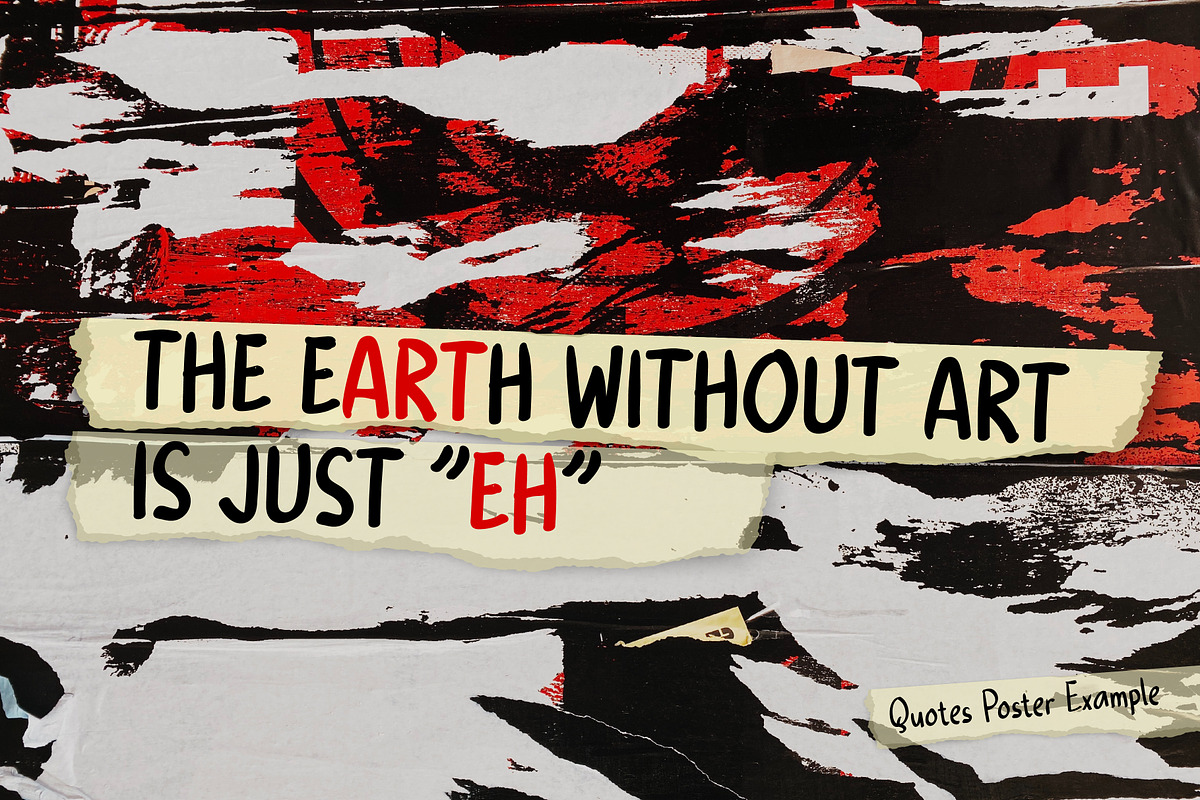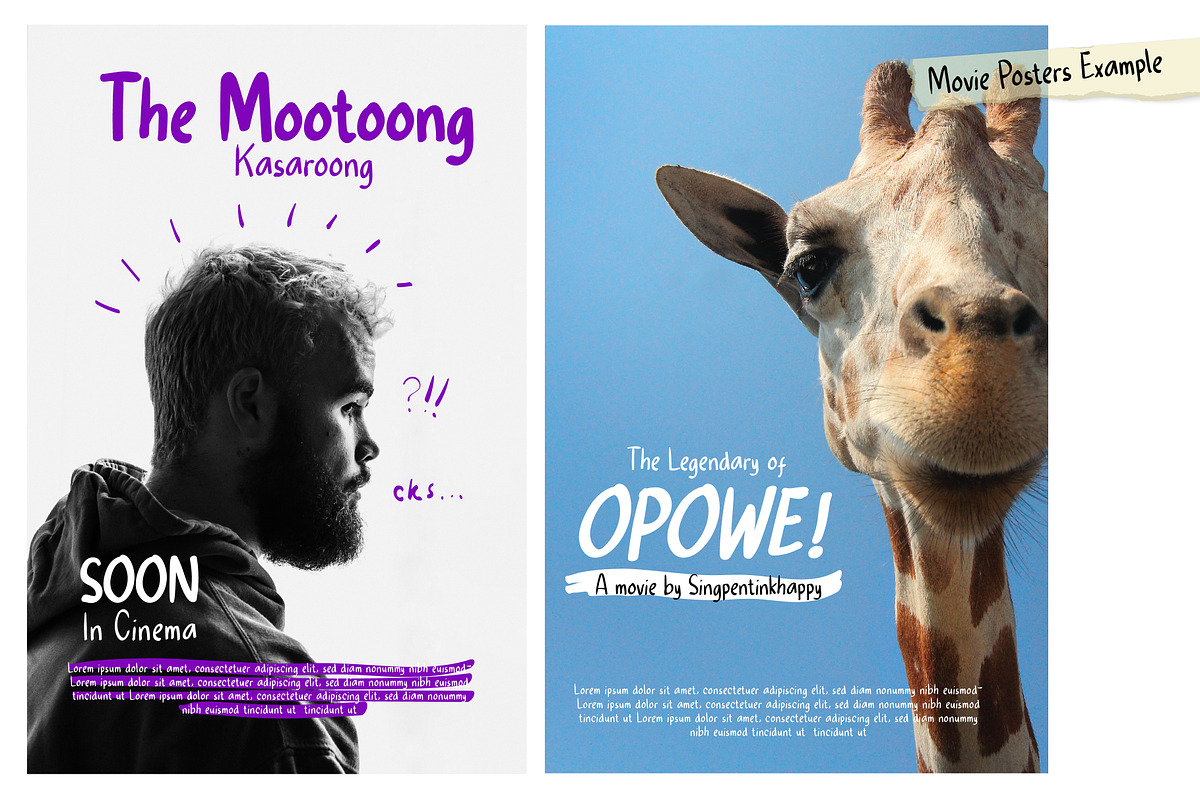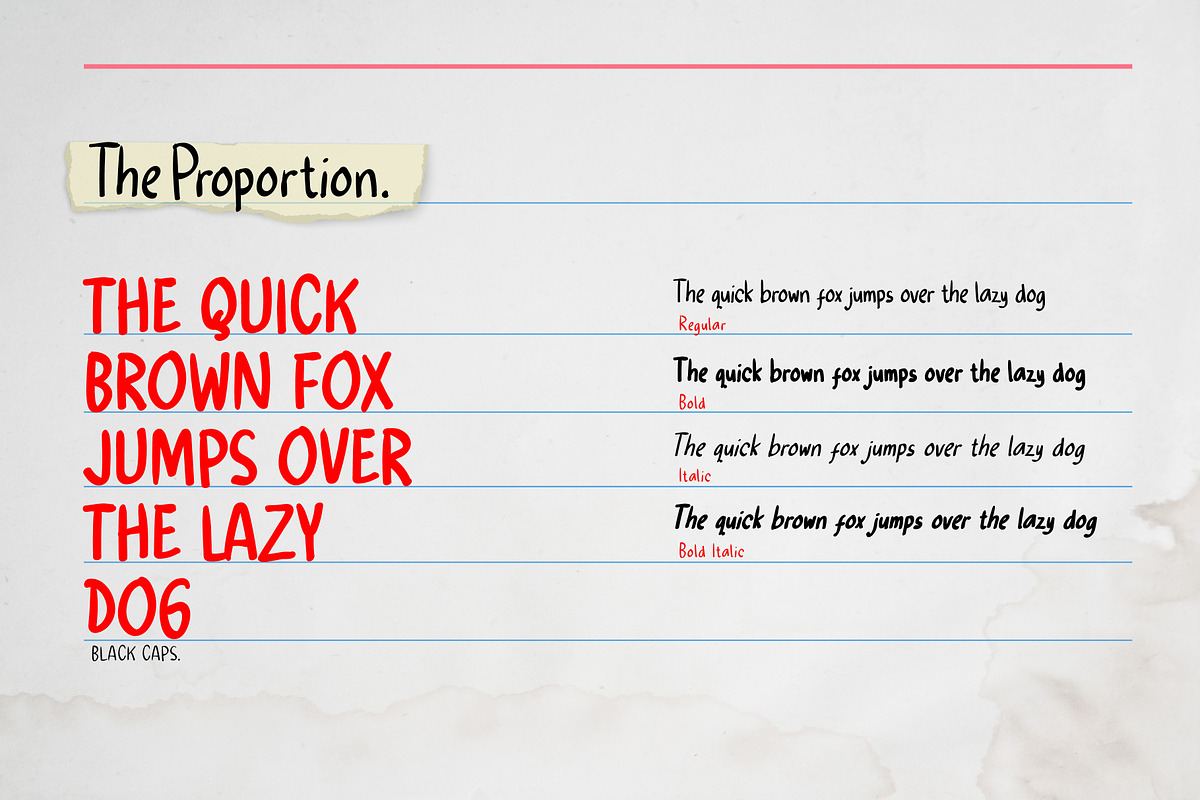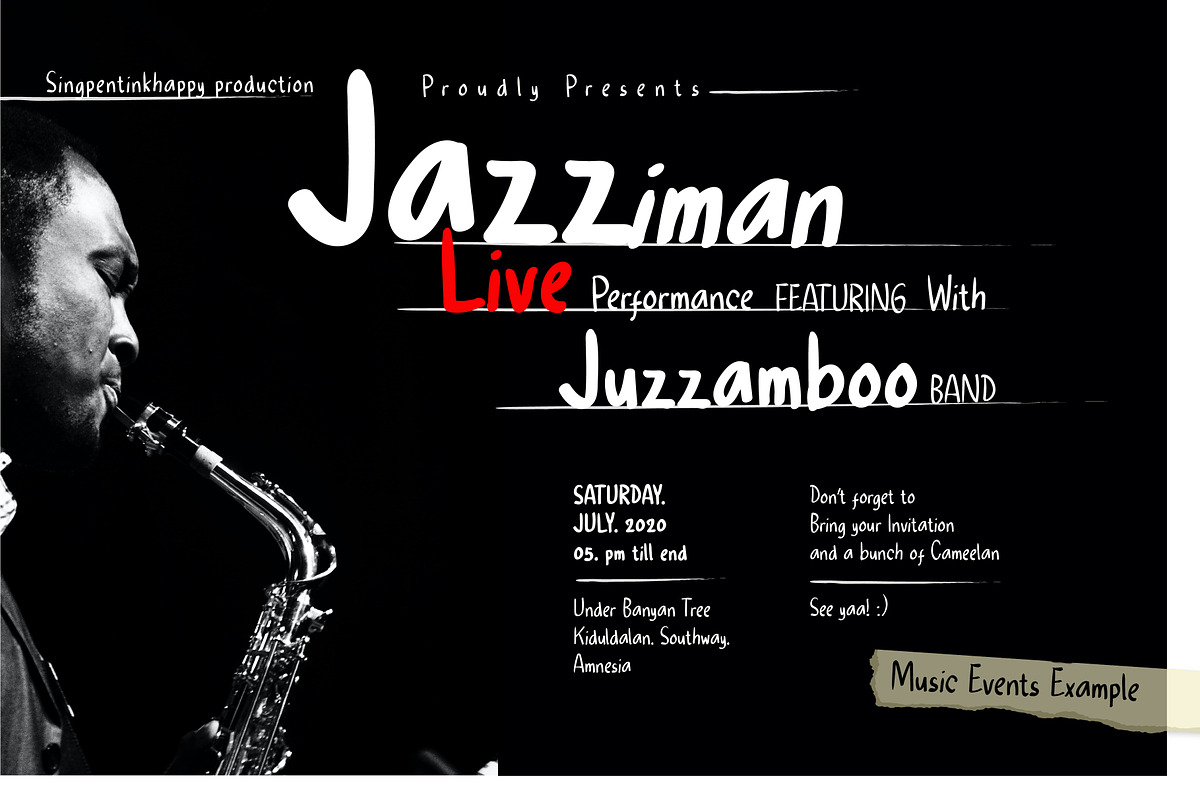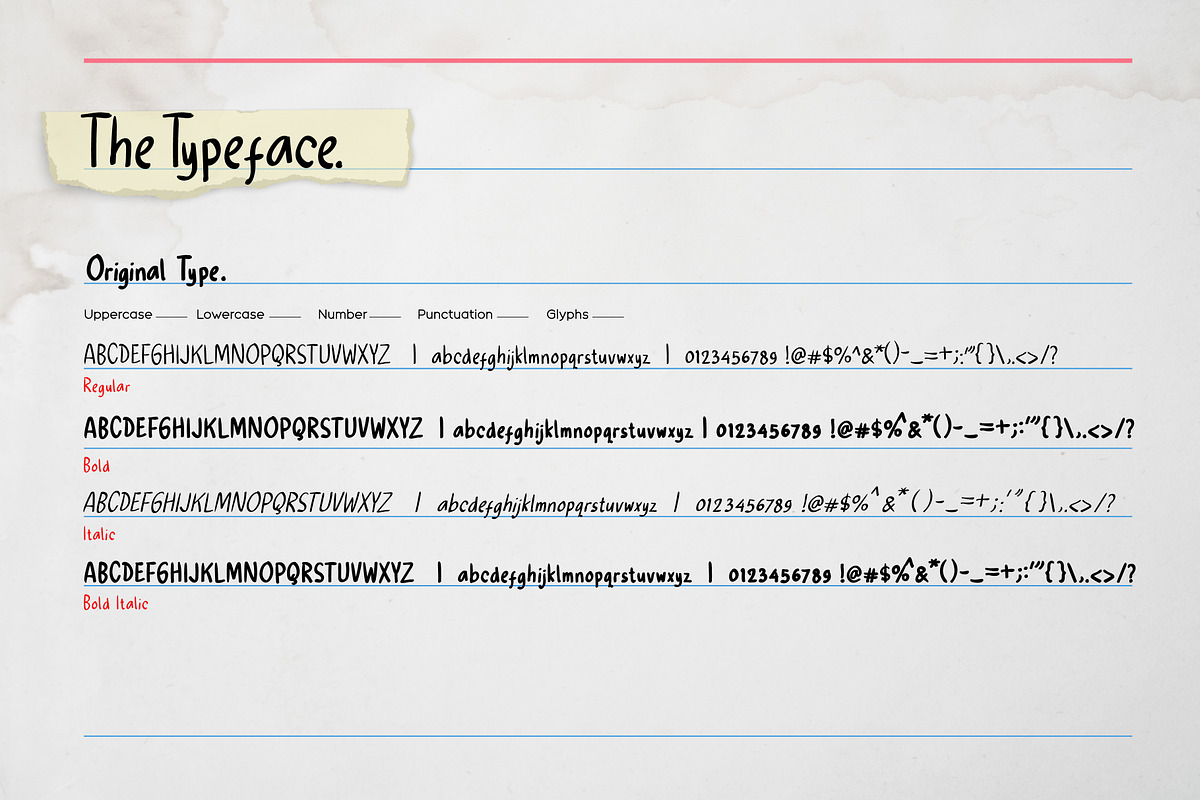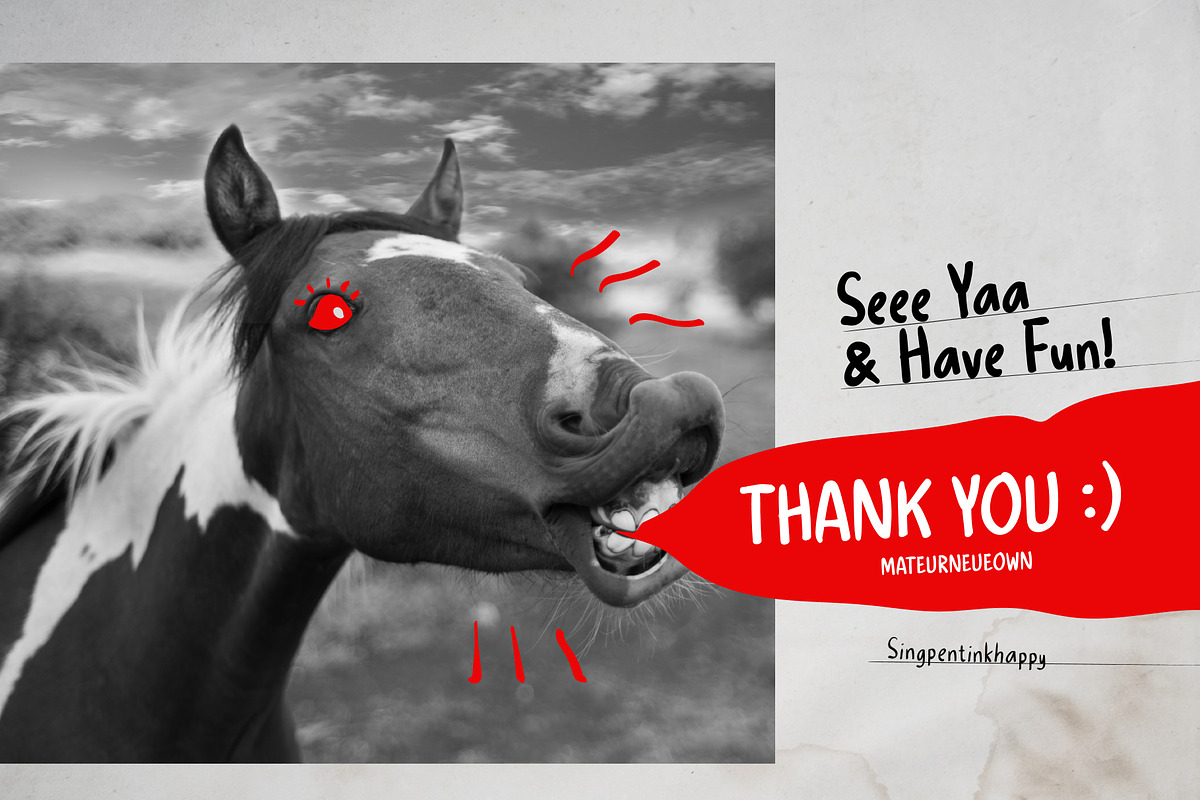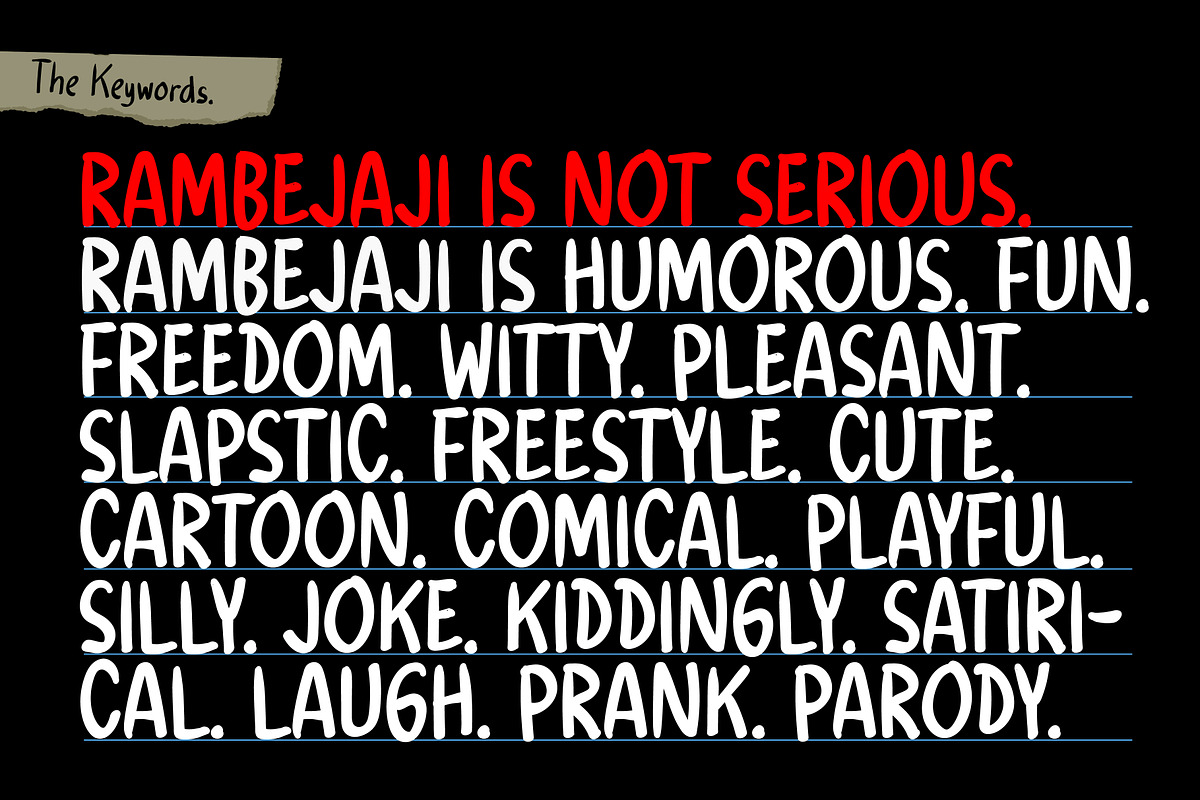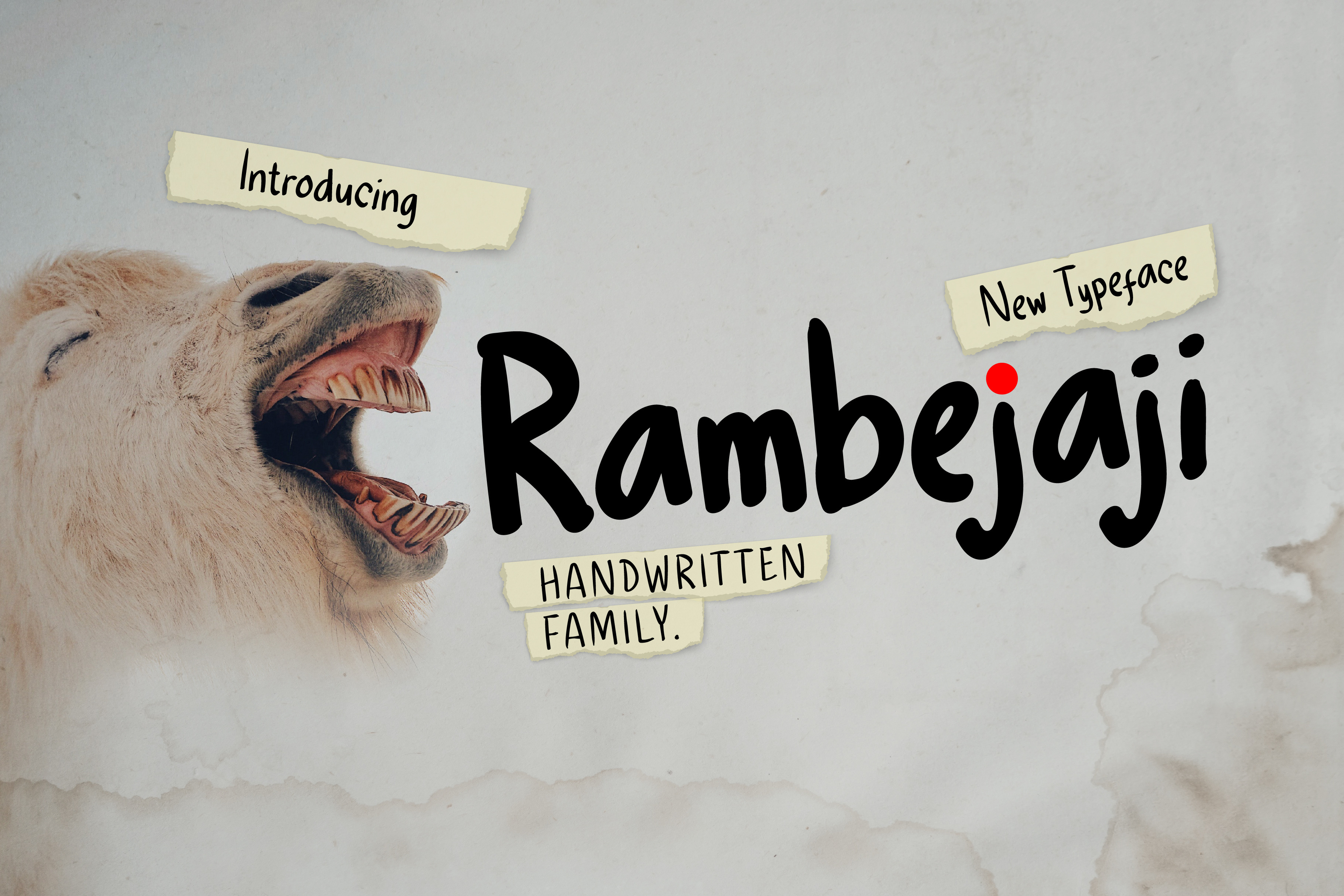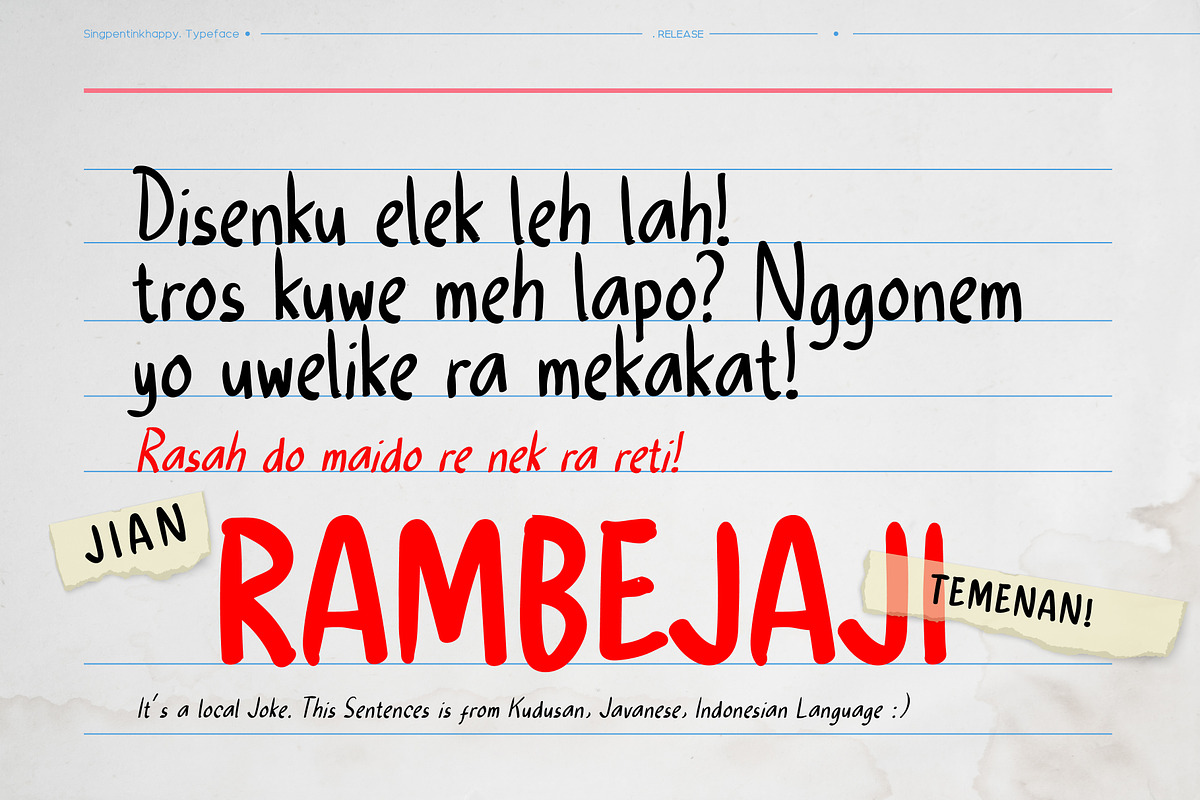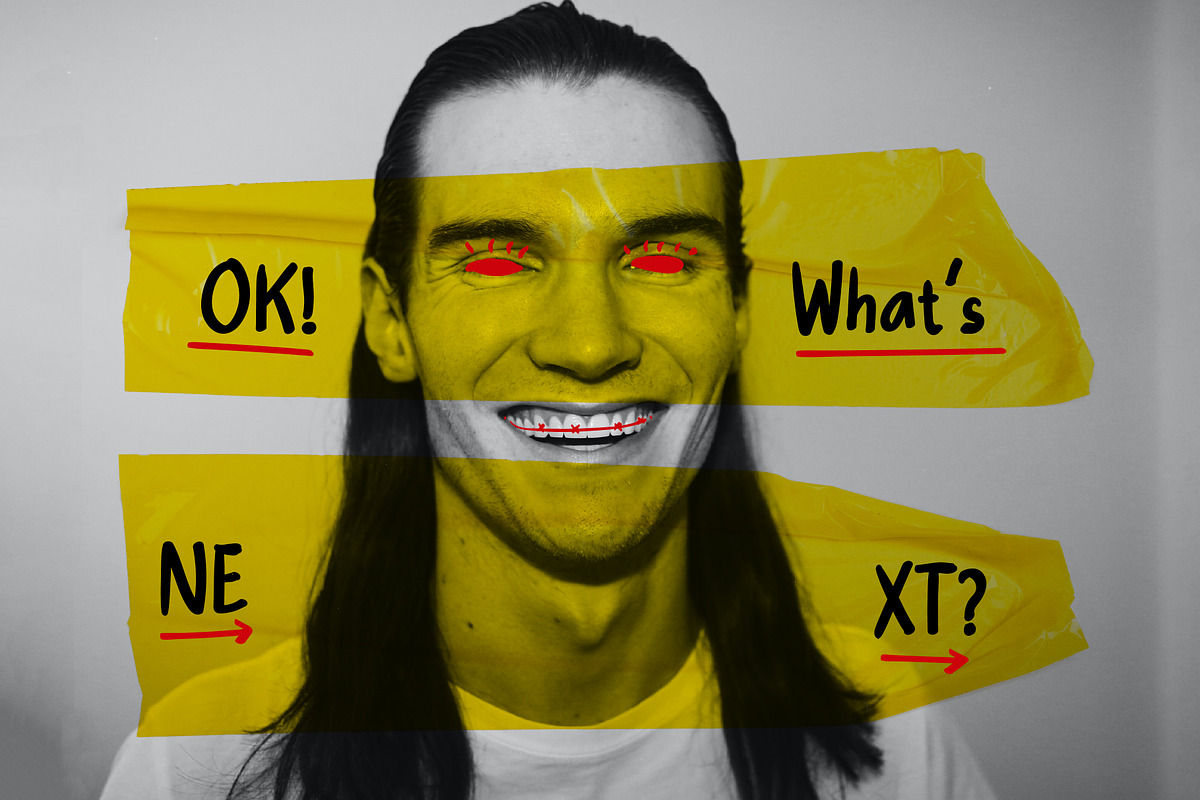
Rambejaji Font
Rambejaji is Fun & Freestyle Handwritten Typeface
Rambejaji is great for comedy, logo, movie, editorial, fashion, joke, quotes, prank, parody, comic, cartoon, travel, and for graphic design typography experiment will very interesting. Thanks for checking out Rambejaji.
Typeface
- Rambejaji Regular. for Bodytext
- Rambejaji Bold. for Headline and subhedline
- Rambejaji italic. for caption
- Rambejaji Bold italic. for Headline and subhedline